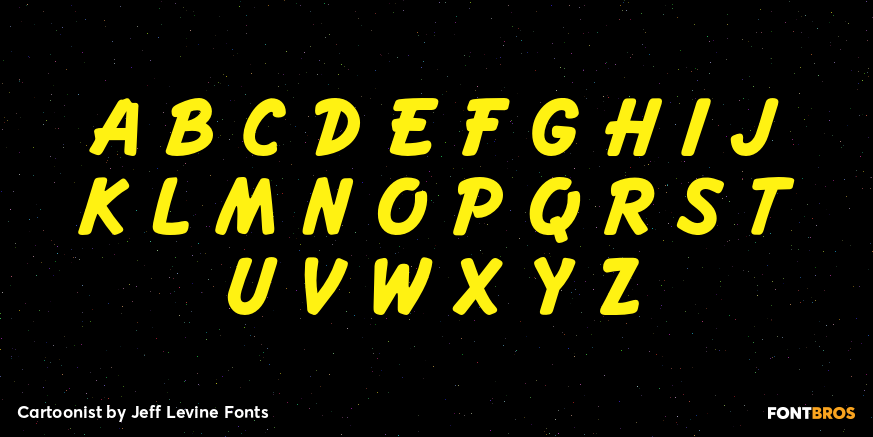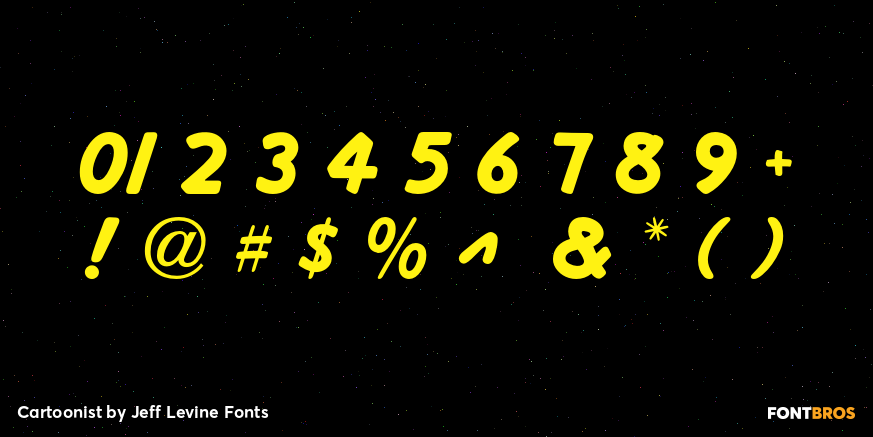
Cartoonist
Cartoonist JNL was modeled from a casual brush lettering style found in a catalog of lettering templates sold by the Wright-Regan Instrument Company (Wrico).
Cartoonist by Jeff Levine Fonts